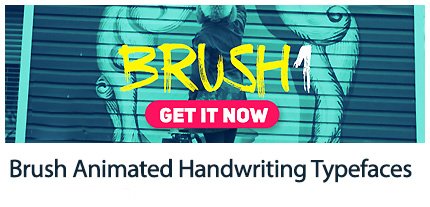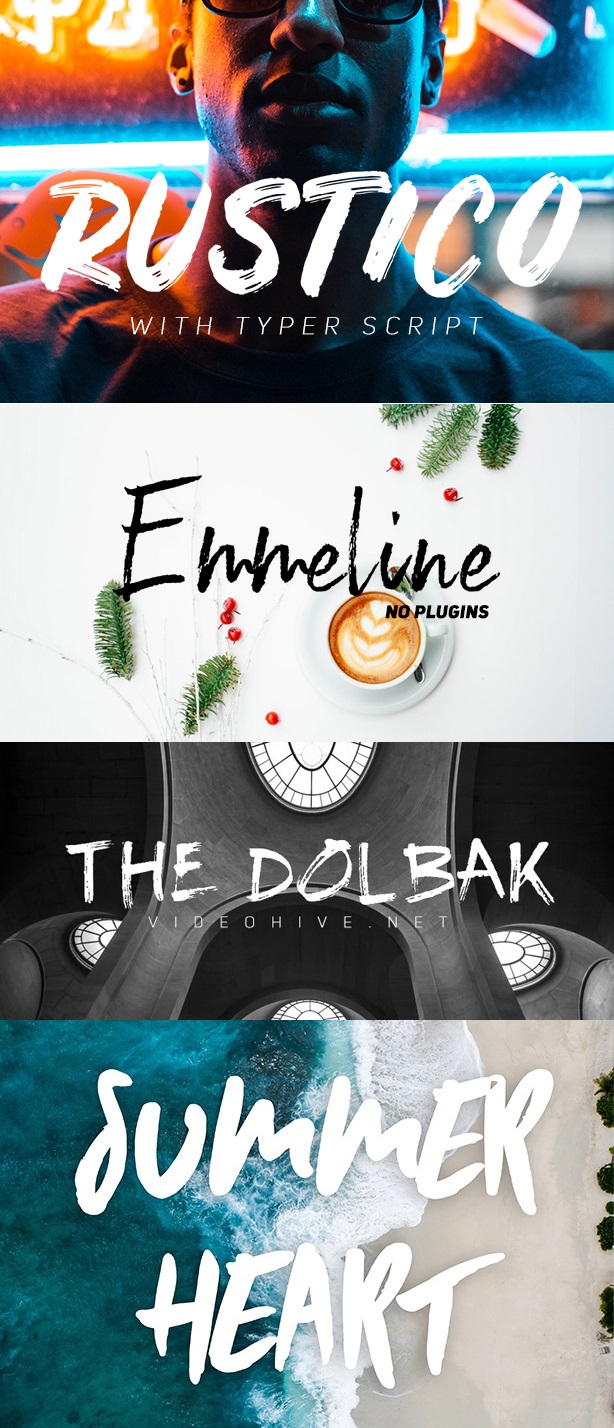
Brush Animated Handwriting Typefaces For Aftereffect
Text design script with brush effect in After Effects
In this section, you can download and use the script and the Brush Animated Handwriting Typefaces project for After Effects. With the help of this tool, you can design a text in the form of a brush design.
Brush Animated Handwriting Typefaces For Aftereffect
Brush Animated Handwritten Typefaces After Effects Template Project. With one click the Typer script automatically animates the text into the timeline. No need to drag and drop individual letters or manually animate each of them. This template can be used for titles, lyrics, quotes, social media videos, Instagram stories, intros, openers, captions, or lower thirds.
• 4 different fonts included.